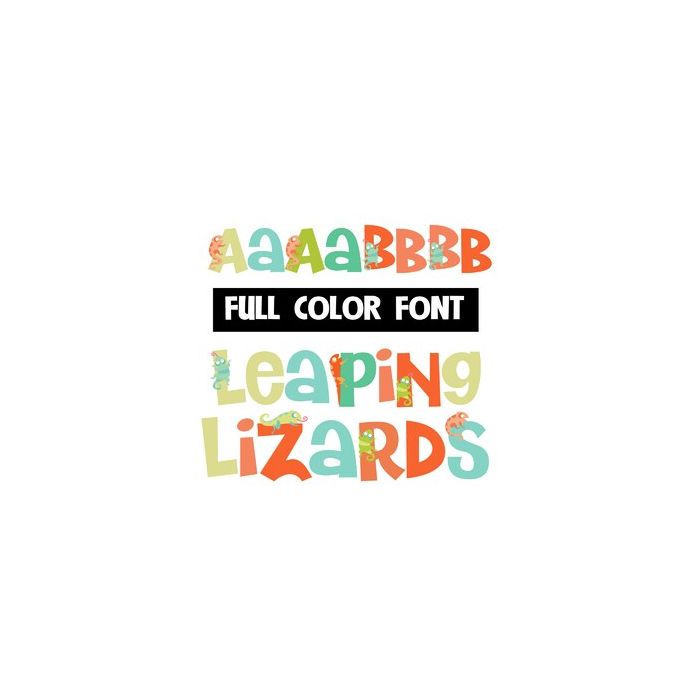
This full-color font features leaping lizards celebrating each uppercase letter. There is an alt case in additional colors you can access through Silhouette or your system's glyph map.